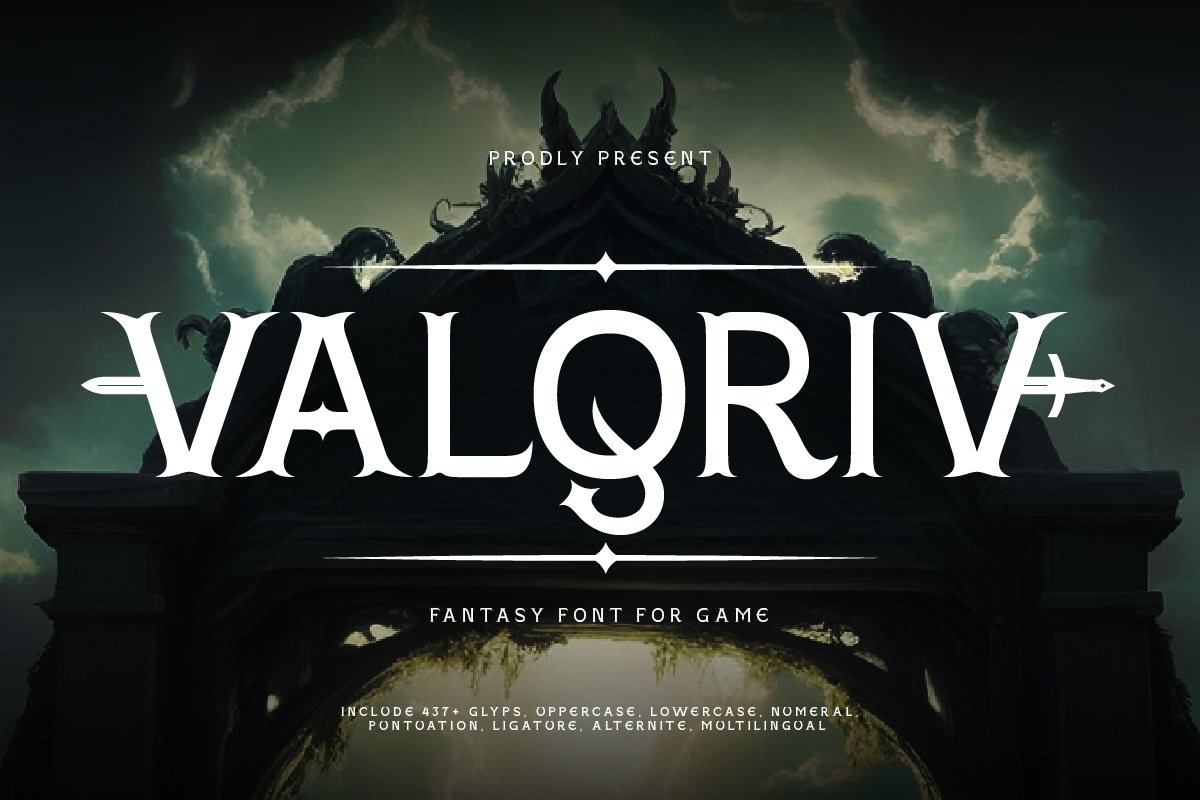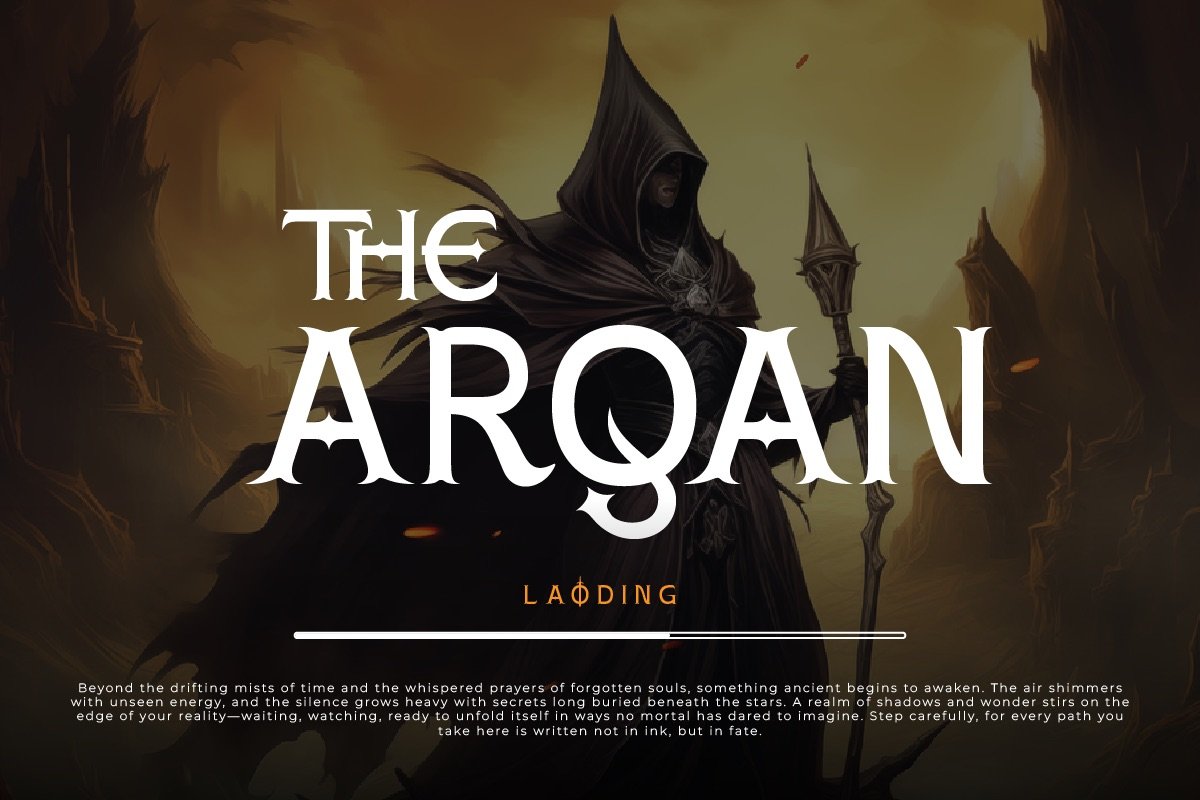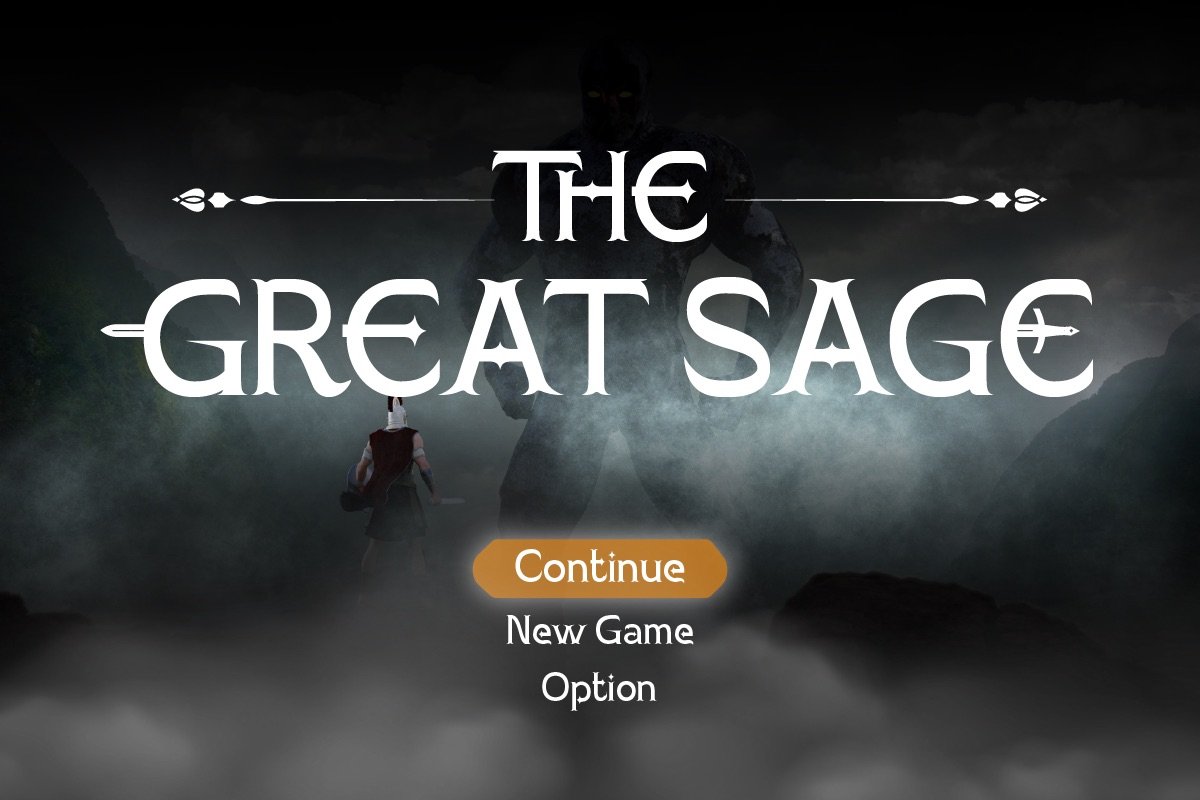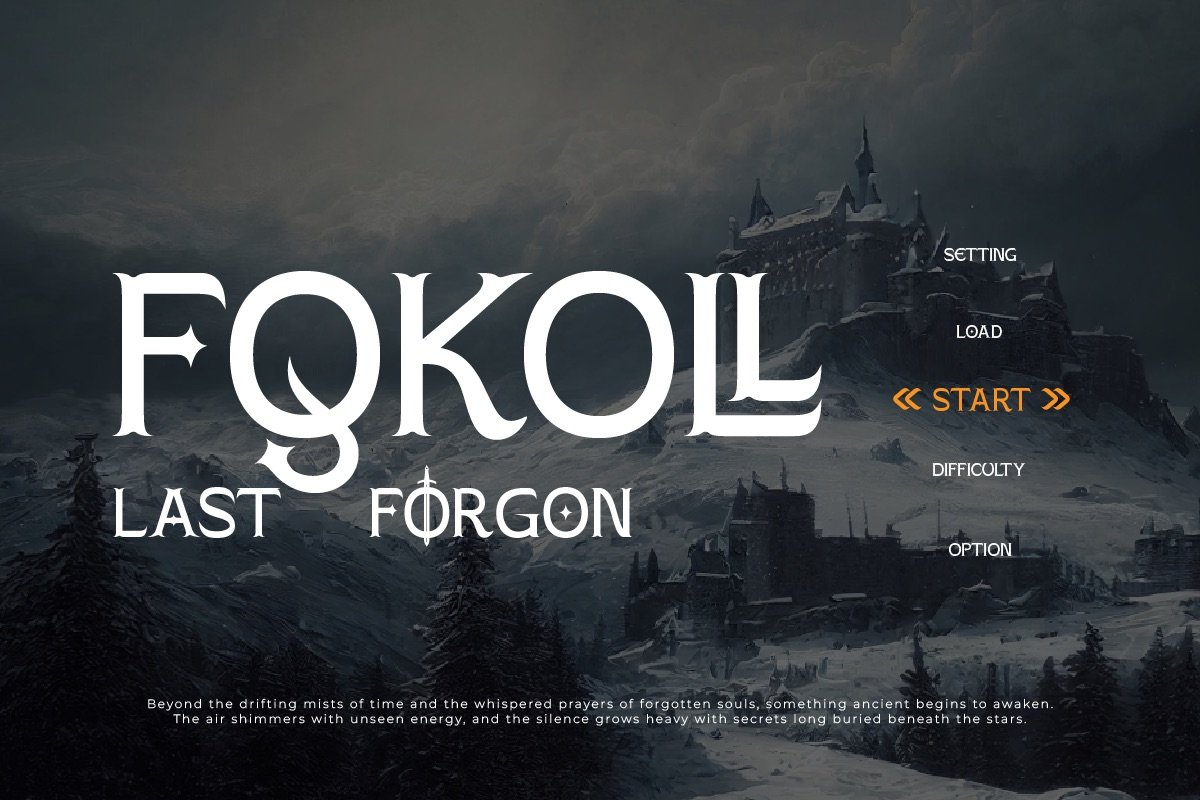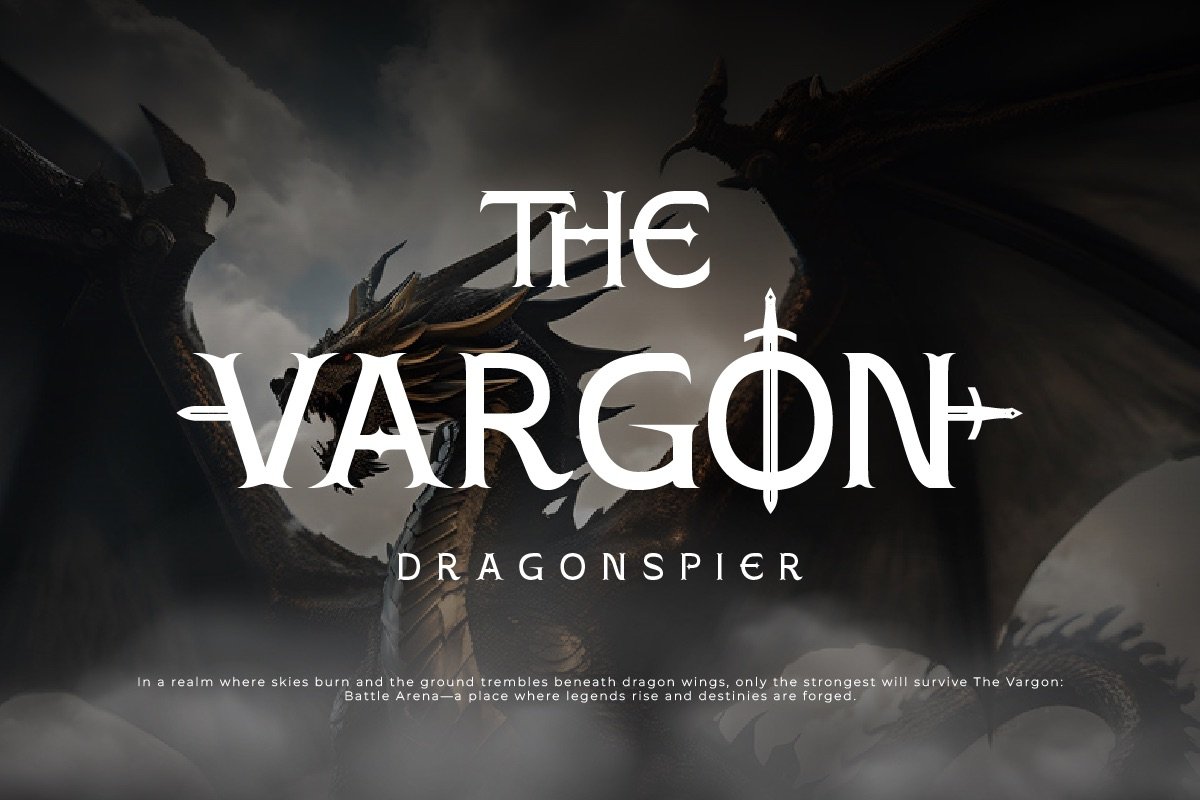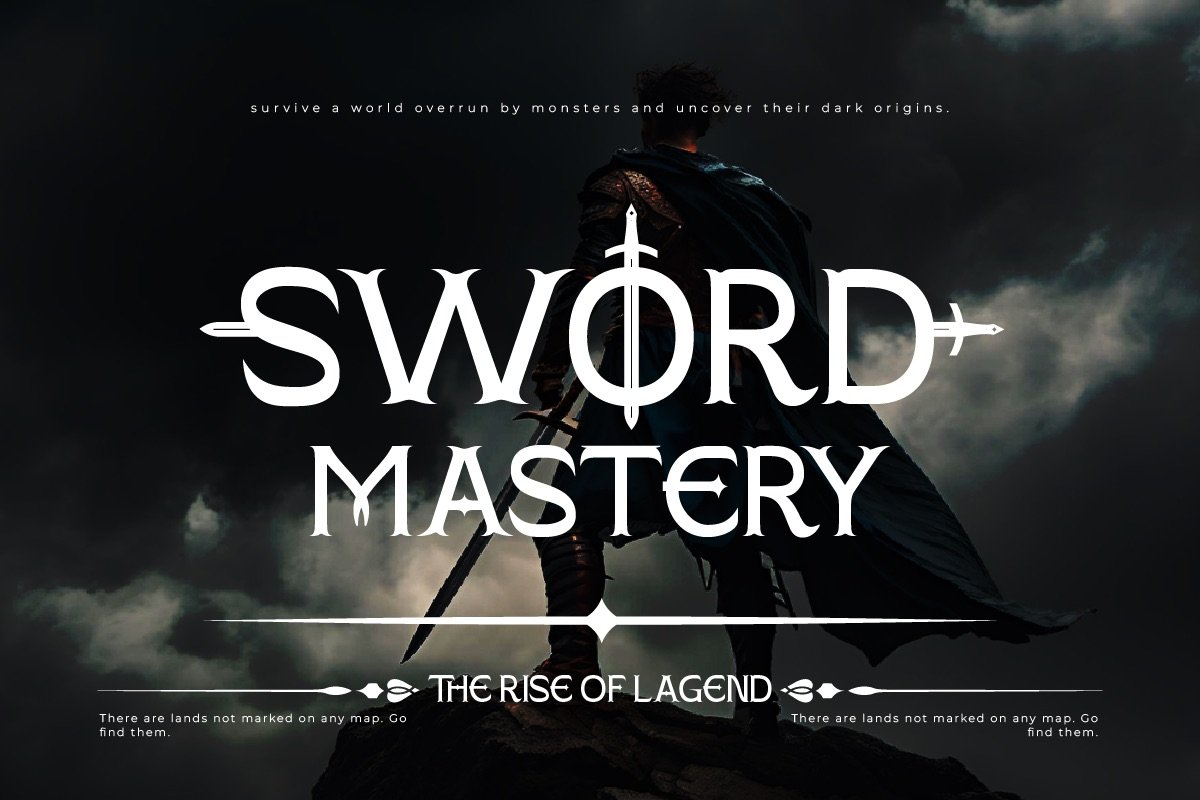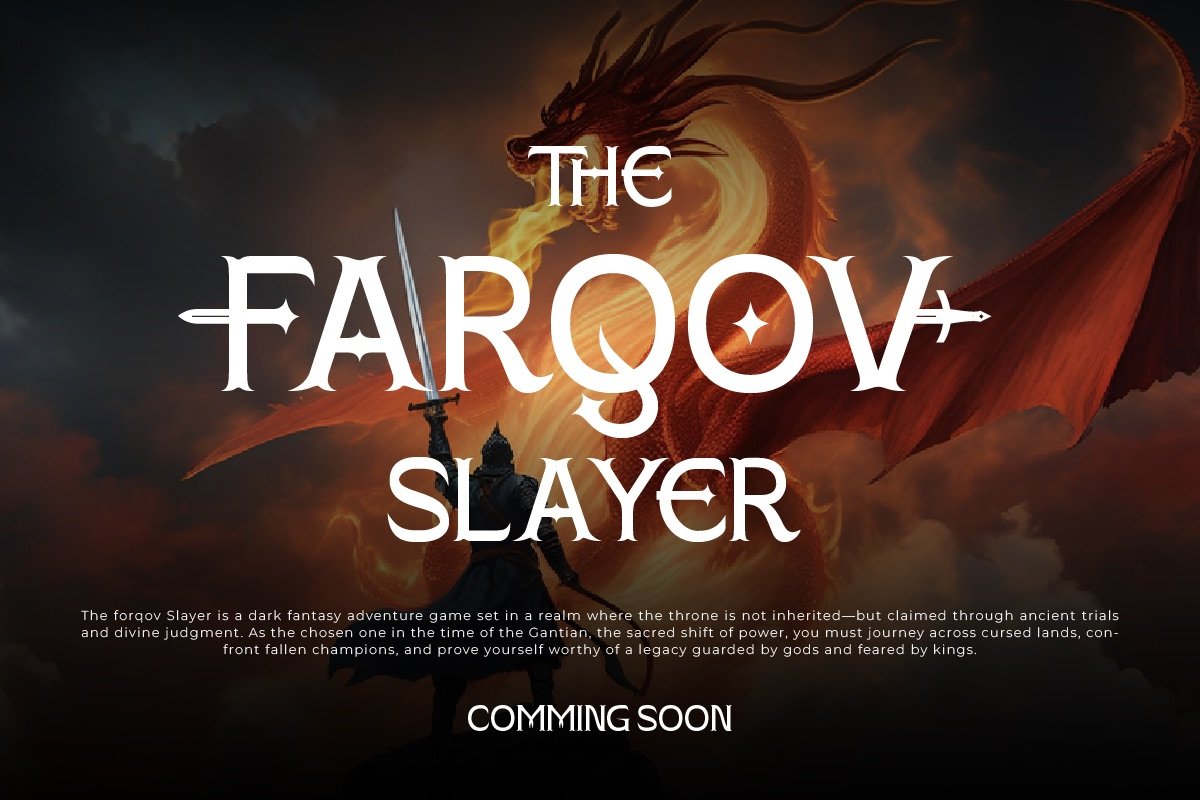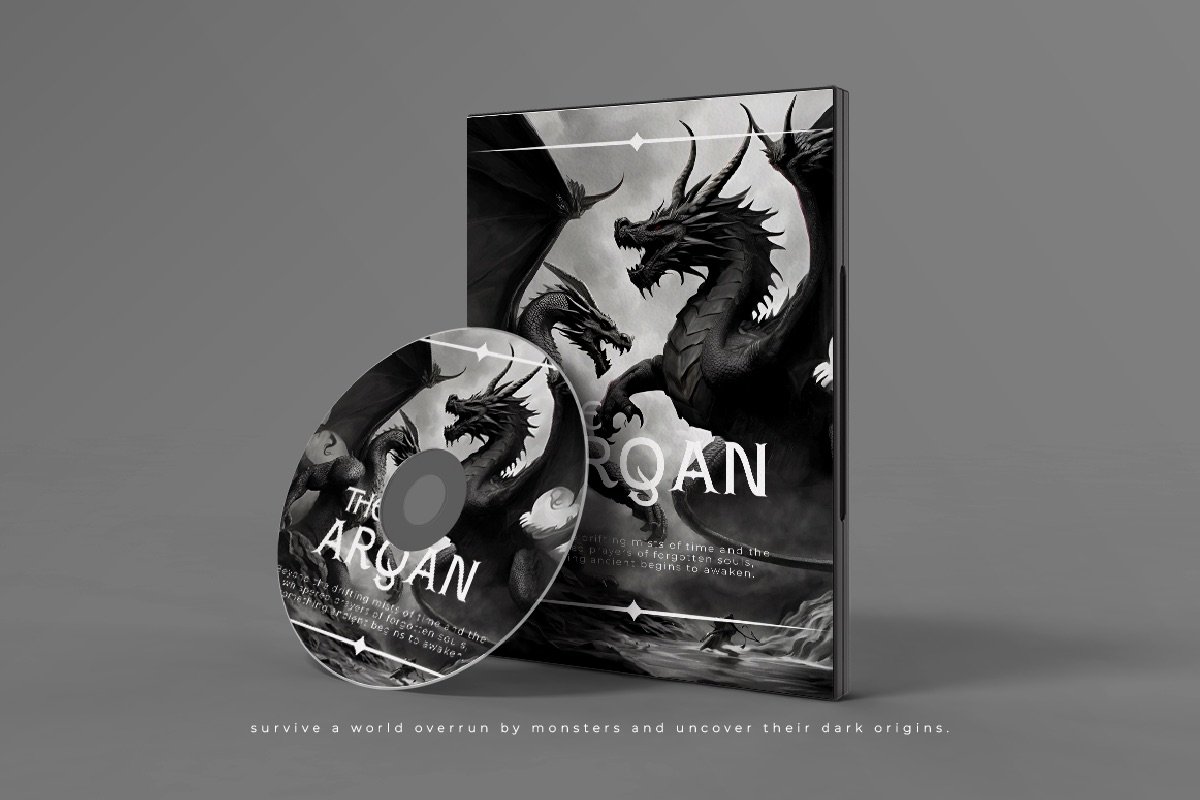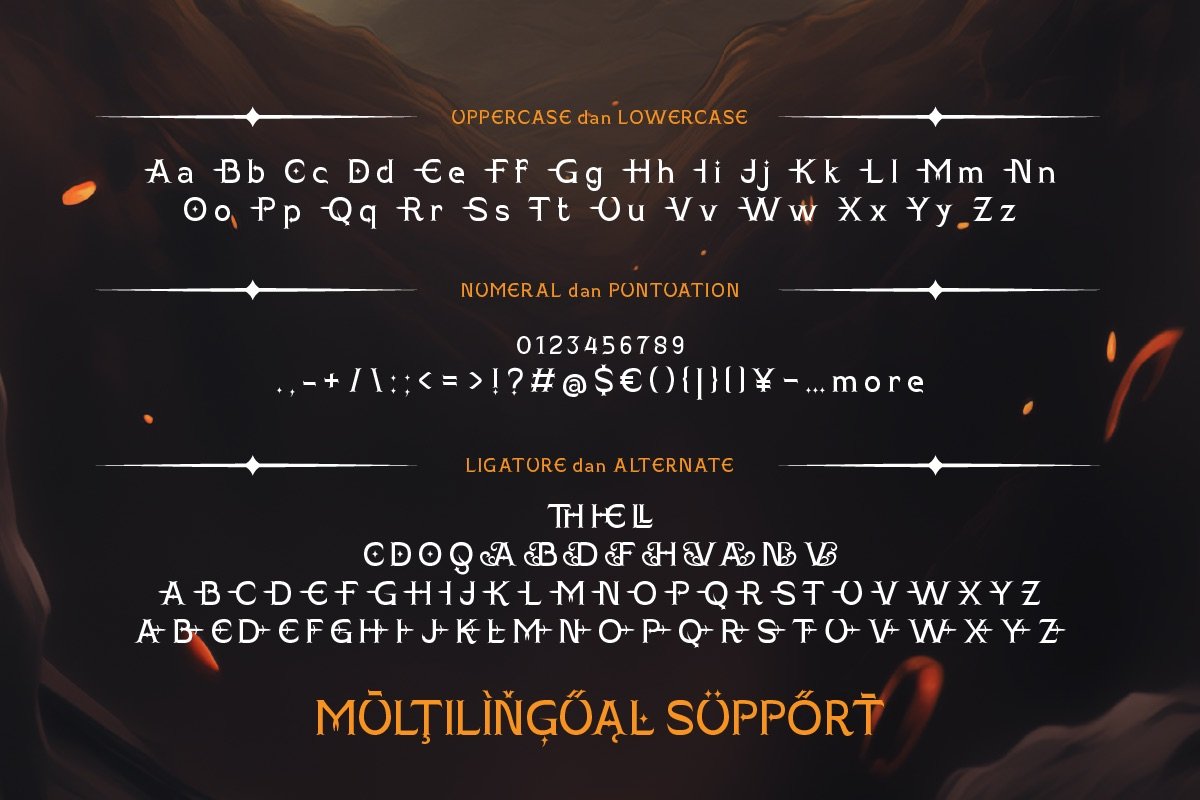
Valqriv – Fantasy Font
Valqriv is a bold and mystical fantasy font designed to bring epic tales and legendary worlds to life. With sharp serifs, intricate details, and a heroic flair, Valqriv evokes the essence of ancient scrolls, magical runes, and forgotten kingdoms. Perfect for fantasy-themed games, book covers, movie titles, or mythical branding, this font delivers powerful storytelling through every letterform.
Whether you’re crafting an RPG logo, a medieval-themed poster, or high-fantasy merchandise, Valqriv commands attention and sets the tone for an adventurous visual journey. Embrace the spirit of fantasy and let your design rise with Valqriv.